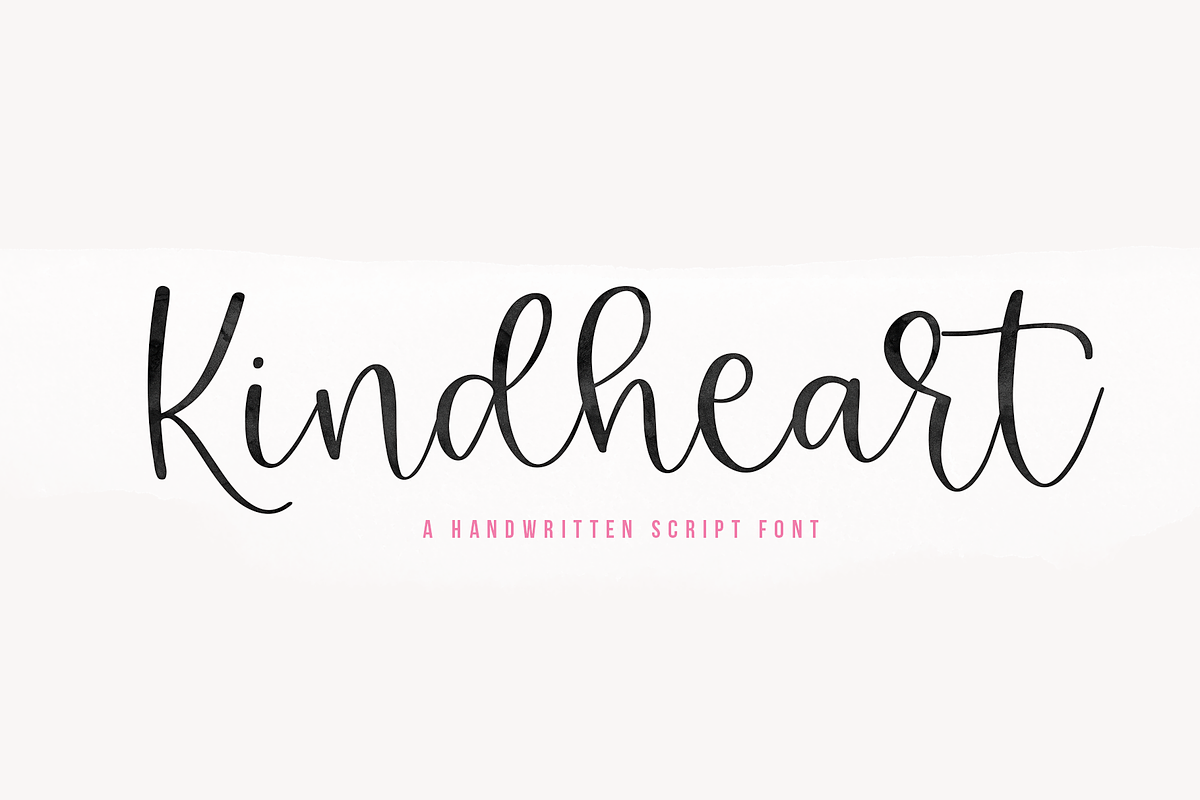
Kindheart | Handwritten Script Font Free Download
Please note, you must purchase this font for commercial use. However, you can easily download Kindheart | Handwritten Script Font Free Download for personal use and testing purposes. Kindheart | Handwritten Script Font is a warm and elegant script typeface with a natural, handwritten style. Perfect for invitations, logos, branding, social media graphics, and more, this font adds a personal, artistic touch to any design. Its smooth curves and flowing strokes give it a soft and inviting feel, making it ideal for projects that require a friendly and intimate vibe. Whether you're designing a wedding invitation, a creative brand identity, or a personal project, Kindheart | Handwritten Script Font Free Download will elevate your typography. Download Kindheart | Handwritten Script Font Free Download today and explore its potential before opting for a commercial license.